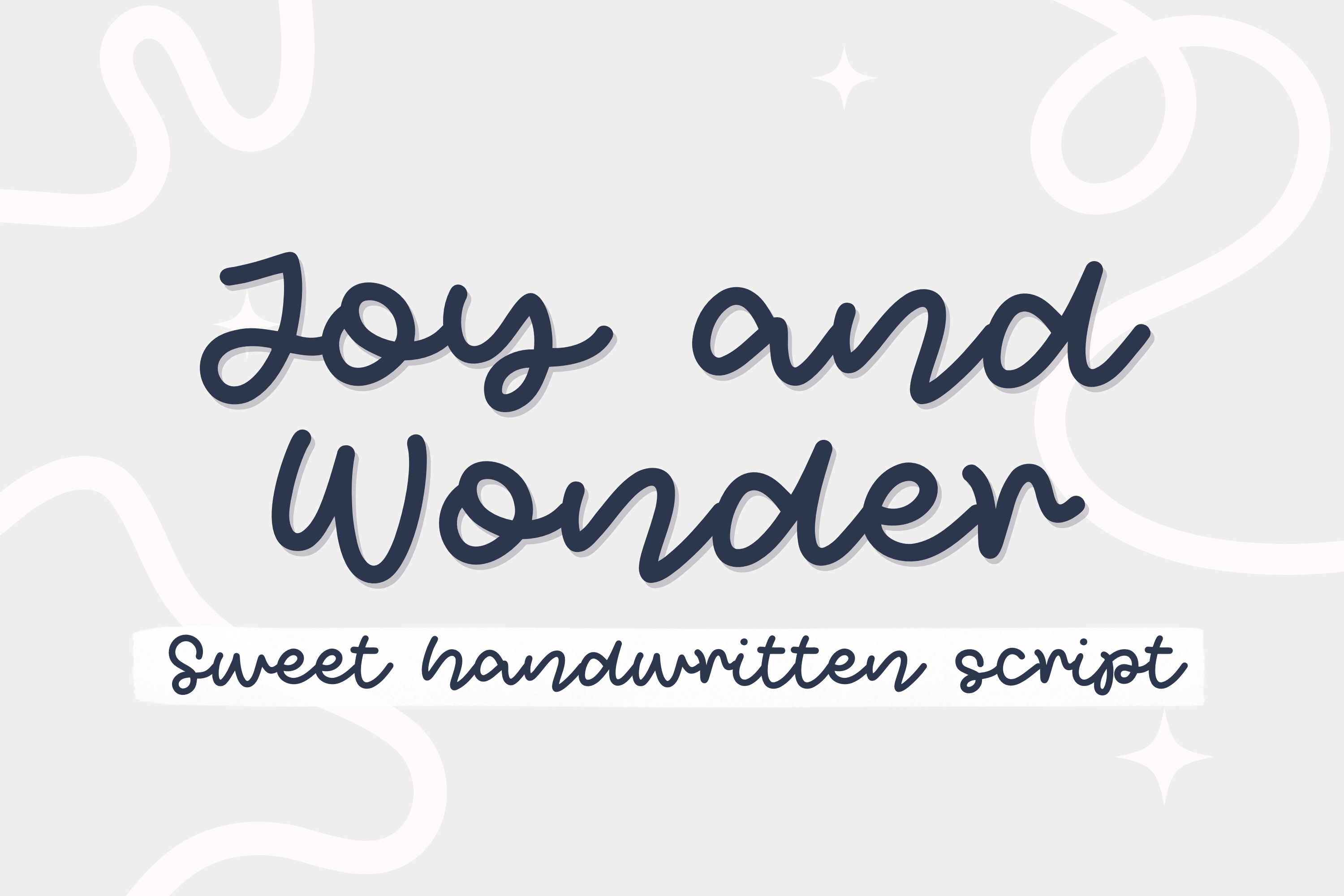
Joy and Wonder monoline script font
Joy and Wonder, a cute and sweet handwritten script font. You can use this font in various projects - blog posts, digital planner, invitations, greeting cards, planners, photo albums, decorations and much more. Thank you :)